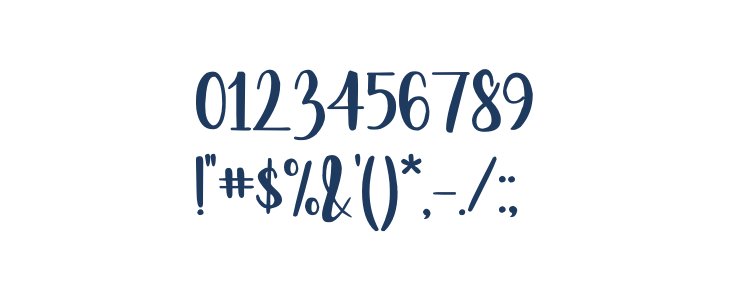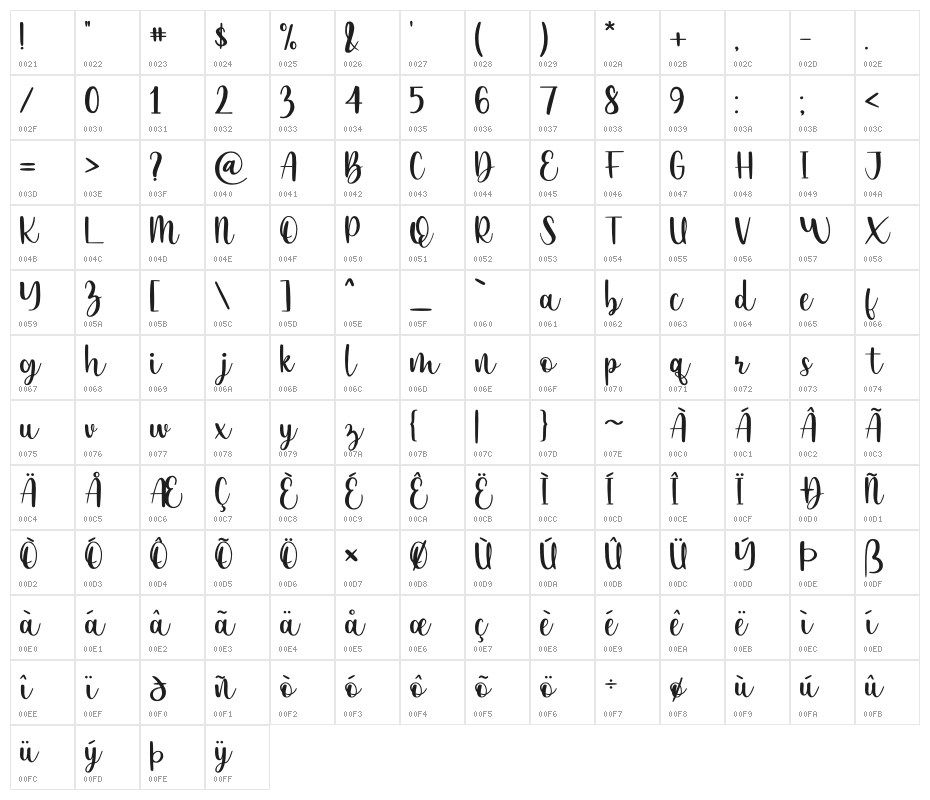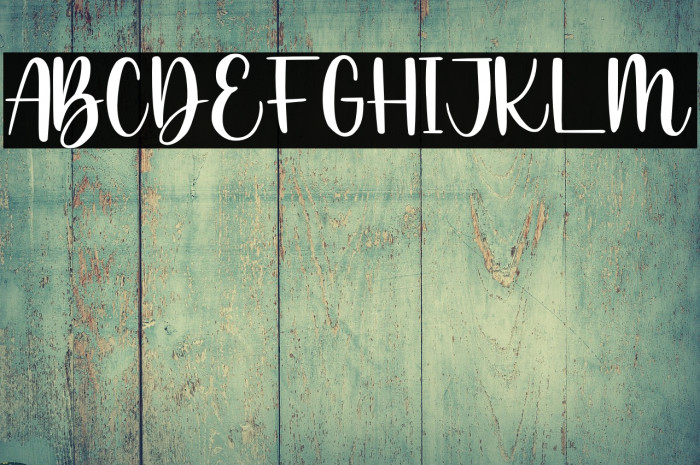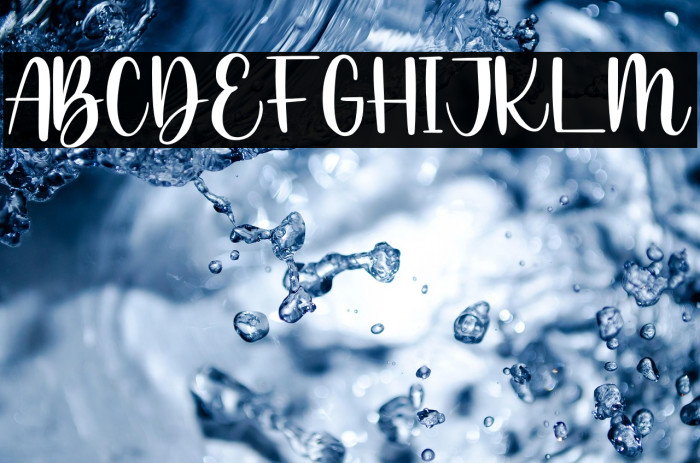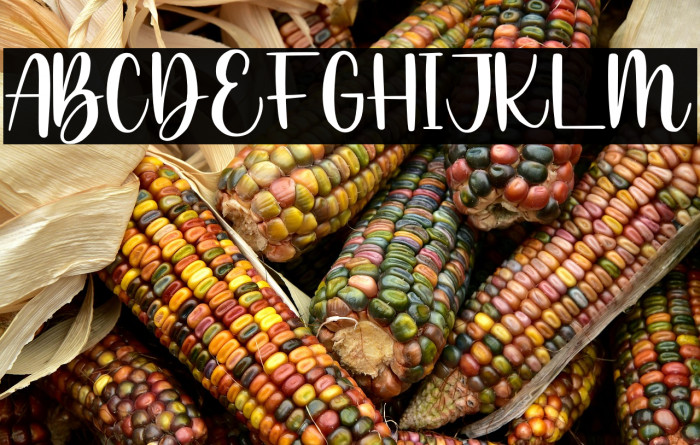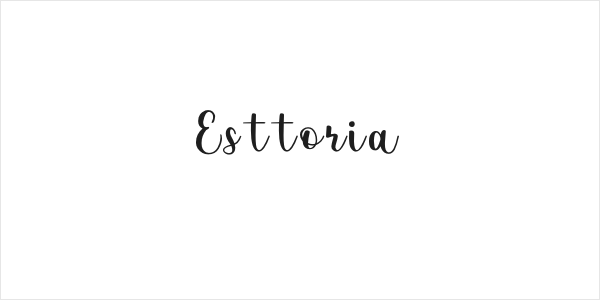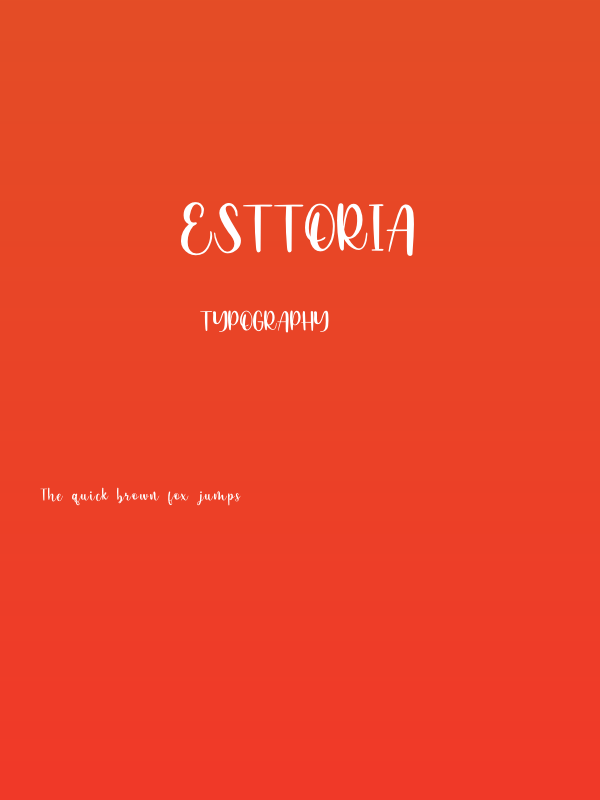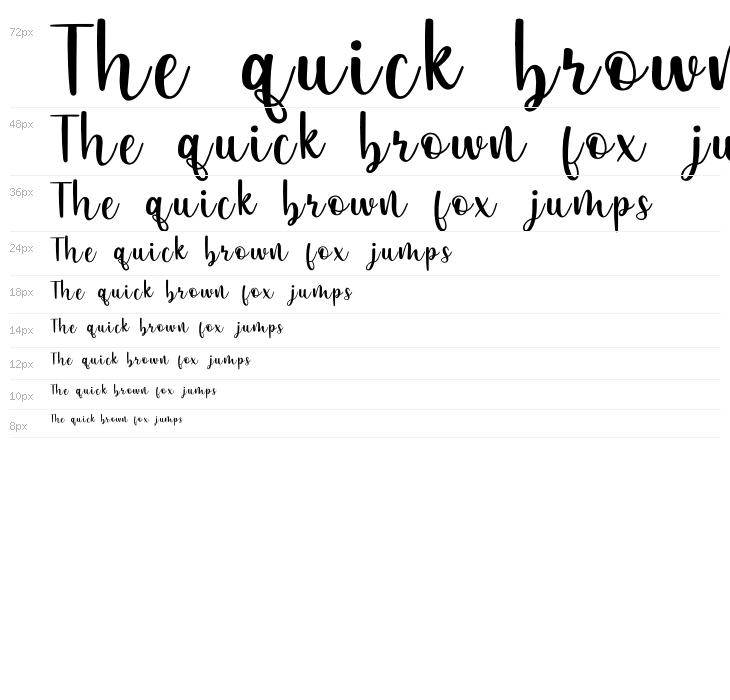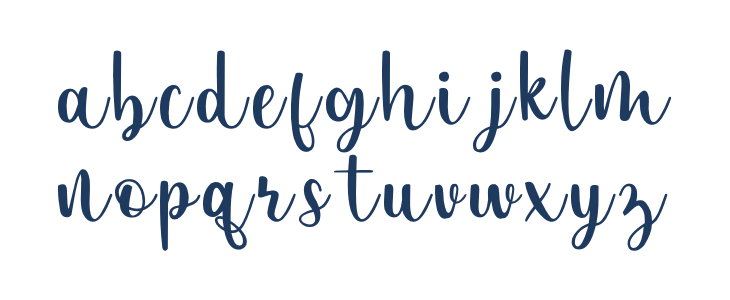
Esttoria Font
Esttoria Description
This font features a playful and flowing script style with a handwritten appearance. The uppercase letters are bold and expressive, while the lowercase letters maintain a consistent, smooth flow. The numbers are clear and slightly rounded, complementing the overall aesthetic. Special characters are creatively integrated, adding to the font's versatility. The strokes vary in thickness, providing a dynamic and lively feel. This font is perfect for projects that require a personal touch, such as invitations, greeting cards, or branding materials.
| Proposed Projects | Ideal for invitations, greeting cards, branding, and personal projects requiring a lively touch. |